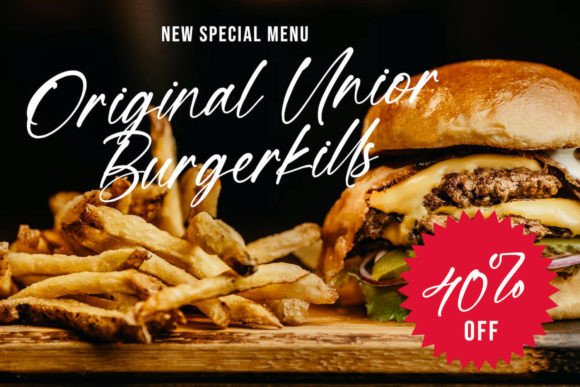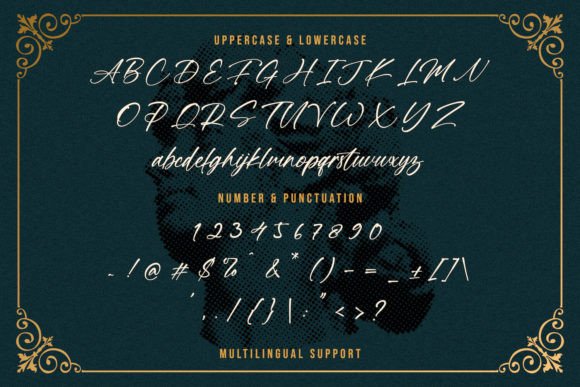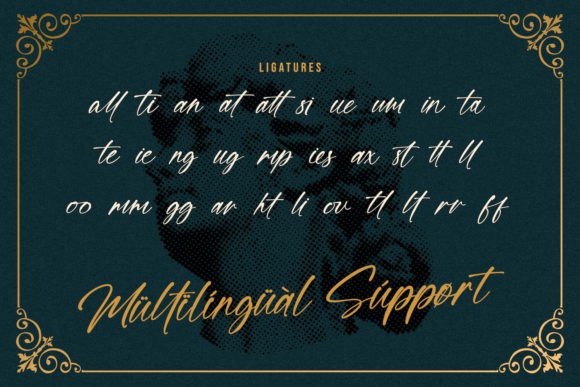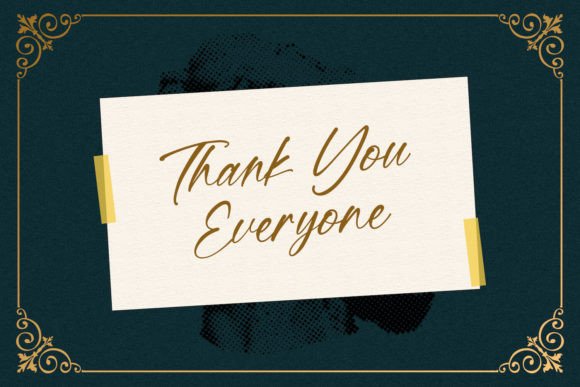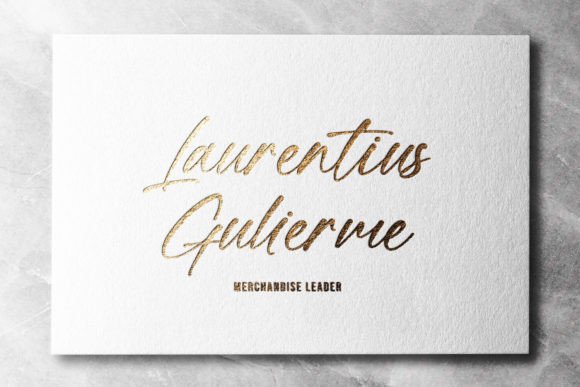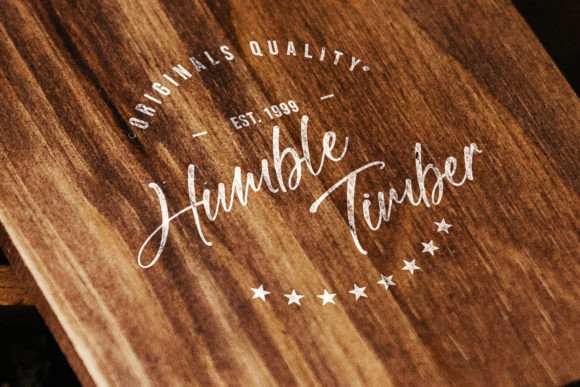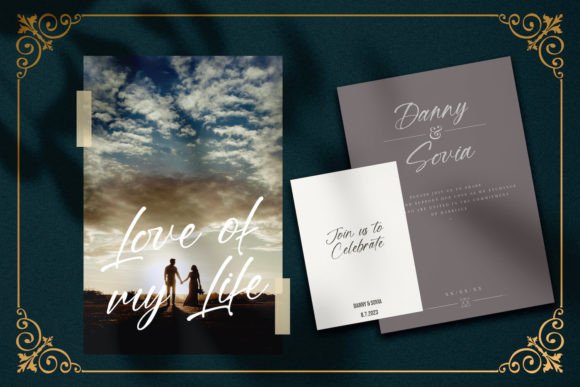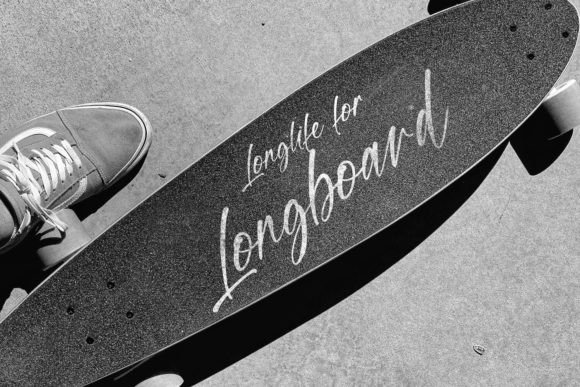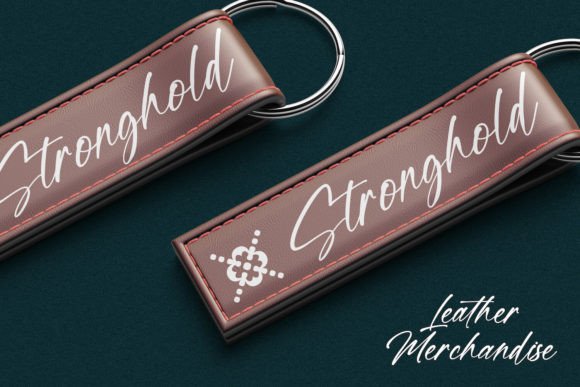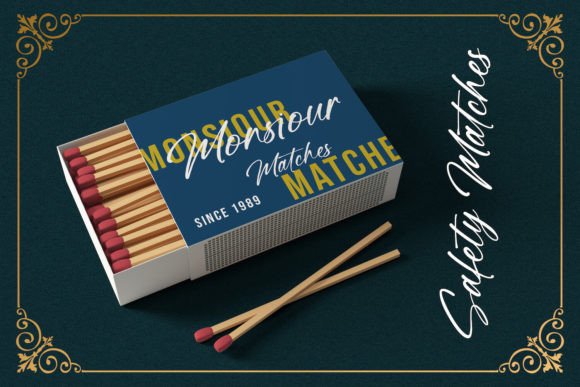
Mugen Ragi Font
Mugen Ragi Font Download – Modern Elegant Script Typeface
The Mugen Ragi Font download is a modern script typeface designed to bring elegance and creativity to any project. With its smooth strokes and refined style, it works well for both personal and professional uses. Because of its versatility, this font is ideal for invitations, logos, branding, and more.
Elegant Style of Mugen Ragi Font Download
The Mugen Ragi Font download has flowing curves and a modern rhythm. As a result, it feels stylish and polished while still being easy to read. In addition, its design makes it adaptable to many different creative needs.
Mugen Ragi Font Download for Invitations and Weddings
Wedding invitations, place cards, and event stationery look stunning with the Mugen RagiFont download. Not only does it bring elegance, but it also adds a romantic touch. Therefore, it is perfect for meaningful occasions.
Mugen RagiFont Download for Logos and Branding
The Mugen RagiFont download is also excellent for logos, labels, and product packaging. Moreover, its graceful handwritten form helps brands look modern and trustworthy while keeping their identity stylish.
Mugen RagiFont Download for Headings and Signatures
You can also use the Mugen RagiFont download for bold headings and digital or handwritten-style signatures. As a result, it ensures your text looks strong and personal at the same time.
Versatility of Mugen RagiFont Download in Creative Projects
From posters and banners to digital graphics, the Mugen RagiFont download adapts easily. In addition, its modern strokes look attractive on both print and web designs.
Why Choose Mugen RagiFont Download for Your Projects?
The Mugen RagiFont download is stylish, flexible, and user-friendly. In other words, it works well for branding, stationery, or digital use. Finally, it is a font that gives every project a polished and creative look.